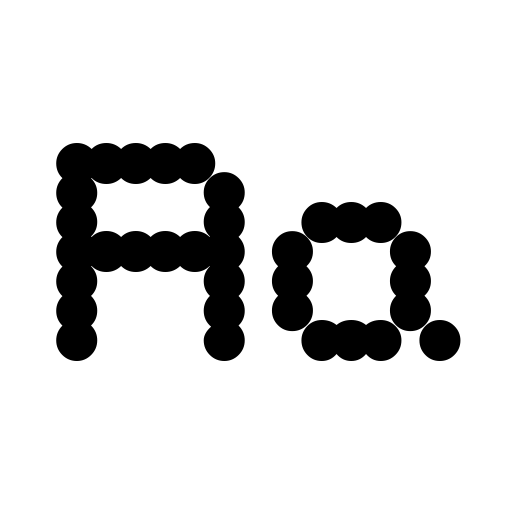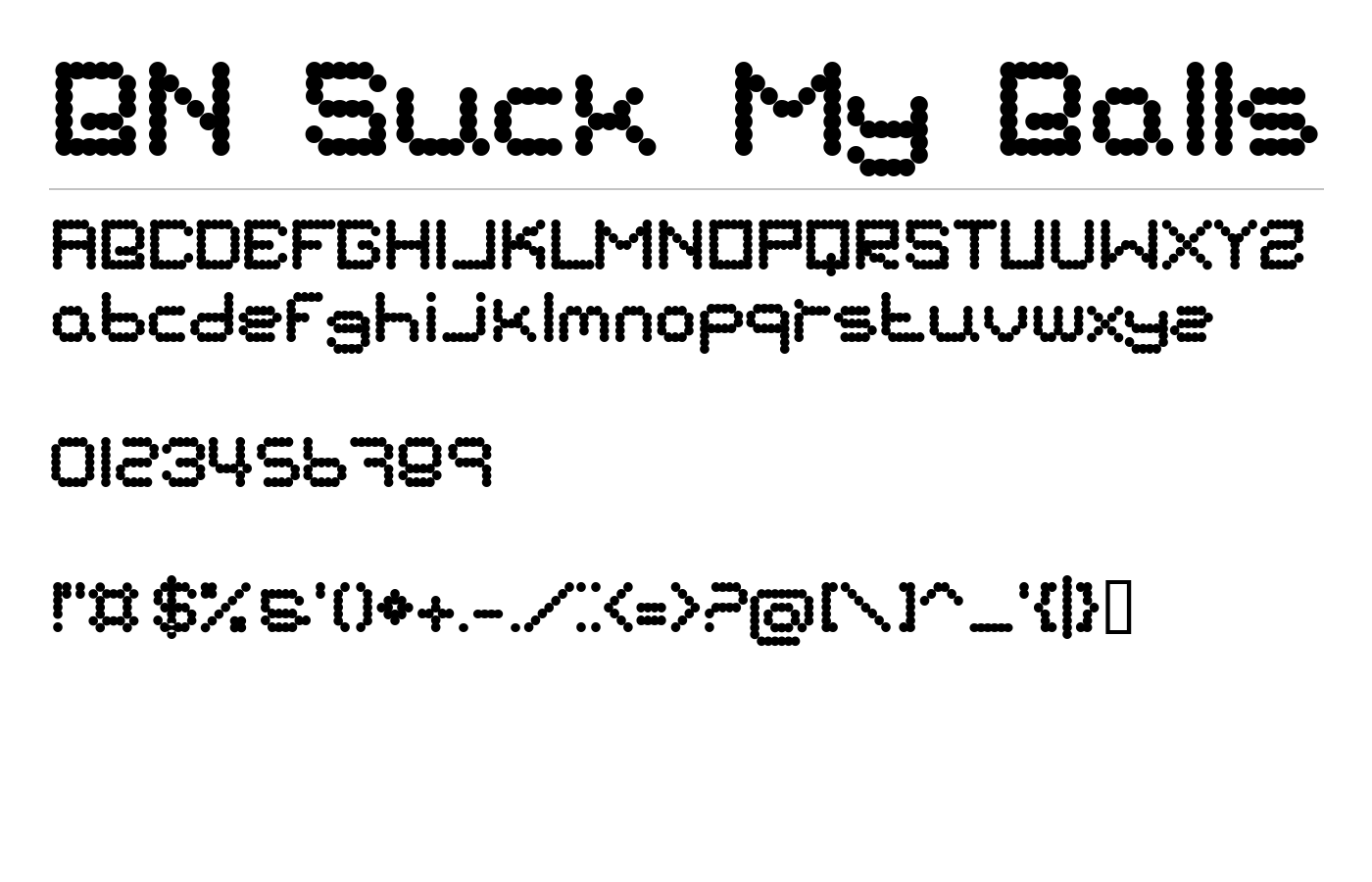
BN Suck My Balls is a whimsical and playful sans serif font made up of evenly spaced circular dots that form each letter and symbol. It has a monospaced, pixelated feel with a medium x-height and uniform stroke weight, giving it a modern yet retro digital vibe. This font is best suited for creative and informal designs, such as tech-themed projects, posters, or playful logos that want to grab attention with an unusual and quirky style.
BN Suck My Balls Font
About BN Suck My Balls Font